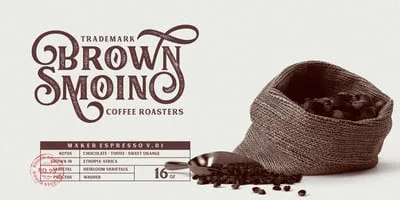
Muara Font
Muara Font is perfect for tropical resort branding, Indonesian restaurant logos, Southeast Asian travel brochures, riverfront cafe signage, wellness spa designs, eco-tourism posters, bamboo product packaging, meditation retreat materials, natural cosmetics branding, and cultural festival graphics that require organic flowing aesthetics.
This font is exciting because it captures the serene beauty and natural flow of river estuaries with graceful curves and organic letterforms that evoke the peaceful convergence of fresh and salt waters. Muara Font features fluid character designs and gentle transitions that create a calming, harmonious visual experience perfect for brands seeking to communicate tranquility and natural balance.
Muara Font family includes Regular, Bold, Light, Italic, Script, Condensed, Extended, and Decorative versions, plus nature-inspired ornaments, water-themed symbols, and tropical flourishes that enhance the organic aesthetic and provide versatile design options for environmental and wellness projects.
For projects celebrating natural harmony, Muara Font delivers exceptional elegance and peaceful sophistication. The font's flowing letterforms and balanced proportions make it ideal for brands in the wellness, eco-tourism, and sustainable lifestyle sectors. Its organic curves simulate the gentle movement of water while maintaining excellent readability across all applications. The character set includes contextual alternates and ligatures that create seamless text flow, mimicking natural water currents. Professional designers value its ability to convey serenity and environmental consciousness while working beautifully in both digital and print media, making it perfect for brands that want to communicate their connection to nature.